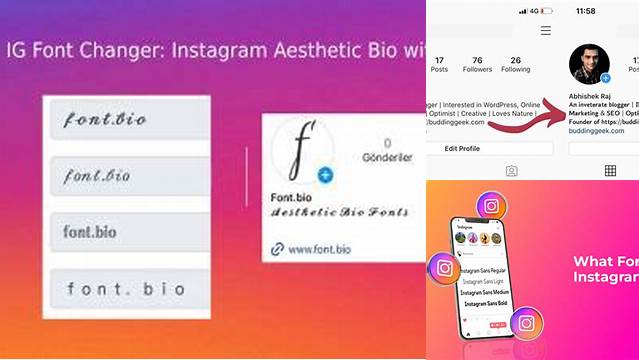
Cool Instagram Bio Fonts: A Simple Guide
Hey guys! Ever wondered how some Instagram profiles have those cool, stylish, and unique fonts in their bios? Well, you've come to the right place! In this guide, we're going to dive deep into the world of Instagram fonts and show you how to use different fonts in your Instagram bio to make your profile stand out from the crowd. Whether you're a business trying to build a brand or just an individual wanting to add some flair, this article has got you covered. So, let's jump right in and explore how to transform your bio from basic to brilliant!
1. Why Use Different Fonts in Your Instagram Bio?
Ever scroll through Instagram and notice how some bios just pop? One of the secrets is using different fonts! Using different fonts in your Instagram bio isn't just about looking pretty; it's a strategic move to grab attention and make a lasting impression. Think about it: in a sea of standard text, a unique font can make your profile stand out like a neon sign.
For businesses, this is huge! A distinct font can reinforce your brand identity and help you communicate your brand's personality. Are you going for a sophisticated vibe? A sleek, modern font can convey that. More of a playful brand? A quirky, handwritten-style font might be the perfect fit. And for personal profiles, using different fonts in your Instagram bio lets you express yourself and showcase your individuality. It’s like choosing the perfect outfit for your online persona. Plus, a visually appealing bio is more likely to catch someone's eye and encourage them to follow you. First impressions matter, and your bio is your digital handshake.
To put it simply, using different fonts in your Instagram bio is a simple yet effective way to elevate your profile. It's about making your bio memorable, engaging, and reflective of who you are. So, let's ditch the boring default font and get creative!
2. Understanding Instagram's Font Limitations
Before we get carried away with fancy fonts, it’s important to understand Instagram's font limitations. Instagram itself offers a pretty standard font selection within the app. You're basically stuck with the default font for most text, including your bio. Why? It’s all about consistency and making sure the platform looks uniform for everyone. But don't worry, this doesn’t mean you’re stuck with boring bios forever! There are clever workarounds to using different fonts in your Instagram bio, which we'll get to in just a bit.
The key takeaway here is that Instagram doesn't directly let you change fonts within the app settings for your bio. This limitation is in place to ensure a consistent user experience across the platform. If everyone could use any font they wanted, things could get pretty chaotic and hard to read. Imagine scrolling through a feed where every bio had a different, bizarre font – it would be a visual mess! So, while Instagram's uniformity has its benefits, it also means we need to get a little creative to spice things up. This is where third-party font generators come into play. These tools are the secret sauce to using different fonts in your Instagram bio and making your profile stand out without breaking any rules.
3. Introducing Font Generator Tools
Alright, guys, let’s talk about the real magic behind those cool Instagram bios: font generator tools! These are the unsung heroes that allow you to use different fonts in your Instagram bio despite Instagram's font limitations. So, what exactly are they? Font generator tools are basically online platforms or apps that take your regular text and transform it into a variety of stylish fonts. They do this by using Unicode characters, which are symbols that look like different fonts but are actually just text variations that Instagram can recognize.
Think of it like this: instead of changing the actual font (which Instagram doesn't allow), these tools are creating look-alike fonts using different characters. Clever, right? There are tons of font generator tools out there, each with its own selection of fonts and features. Some are simple websites where you type your text, and it instantly generates different font options. Others are apps you can download on your phone for quick access. Popular options include LingoJam, Cool Font, and FontGet, but there are many more to explore.
The best part? Most of these tools are super easy to use. You just type your text, scroll through the font options, and copy the one you like. Then, you paste it into your Instagram bio – and voilà ! You've successfully used different fonts in your Instagram bio without needing any design skills. These tools open up a world of possibilities, allowing you to add personality and flair to your profile with minimal effort. So, let's dive into how to use them!
4. Step-by-Step Guide: Using Font Generators
Okay, let's get practical! Here's a step-by-step guide on how to use different fonts in your Instagram bio using font generator tools. It's super easy, so don't worry if you're not tech-savvy – you'll be a pro in no time!
Step 1: Choose a Font Generator Tool. First things first, you need to pick a font generator tool. As we mentioned earlier, there are tons of options out there. Websites like LingoJam, Cool Font, and FontGet are great starting points. You can also find apps in your phone's app store like Fonts for Instagram. Browse around and see which one has the fonts you like best.
Step 2: Type Your Bio Text. Once you've chosen a tool, it's time to type the text you want in your Instagram bio. This could be anything from your name and a brief description of yourself to a catchy slogan or a list of your interests. Play around with different phrases and see what fits your style.
Step 3: Select Your Favorite Font. This is the fun part! Most font generator tools will automatically generate a bunch of different font options as you type. Scroll through the list and see what catches your eye. Look for fonts that match your personality or brand. Do you want something bold and modern? Or maybe something elegant and script-like? Take your time and choose a font that you love.
Step 4: Copy the Font. Once you've found the perfect font, simply copy the text that's displayed in that font. Most tools have a